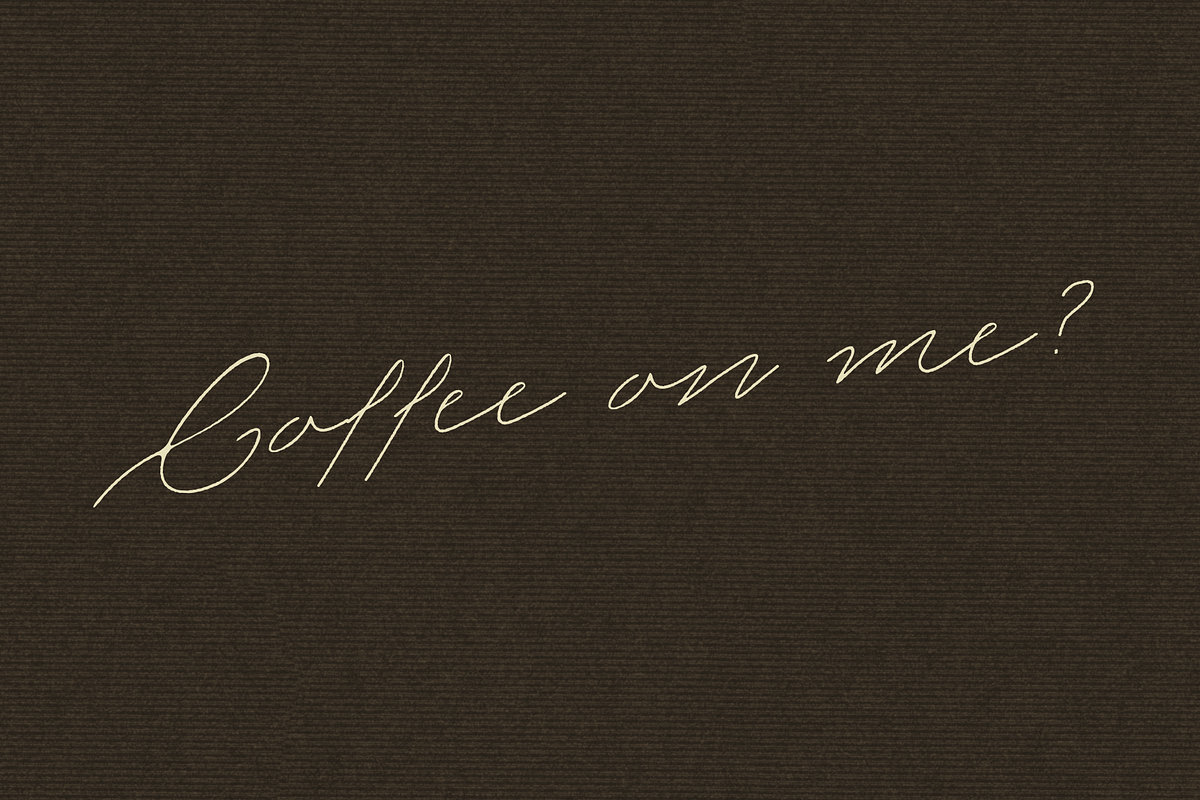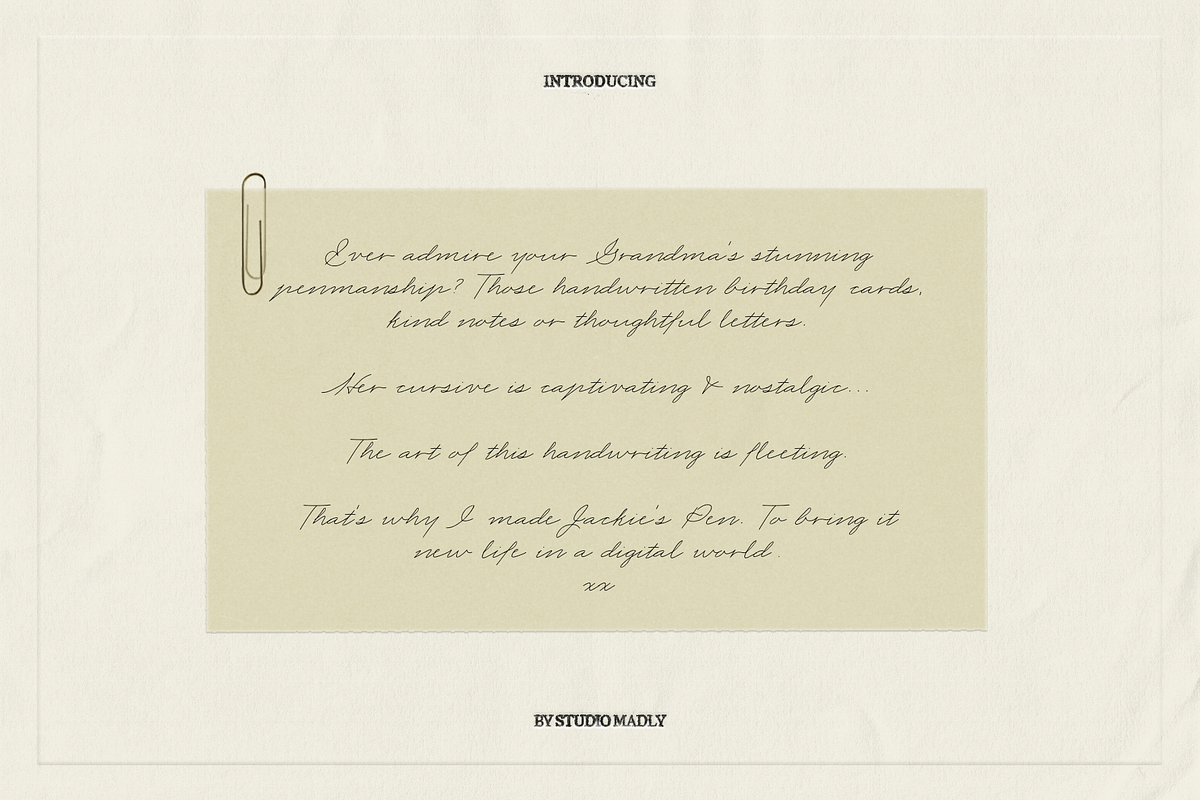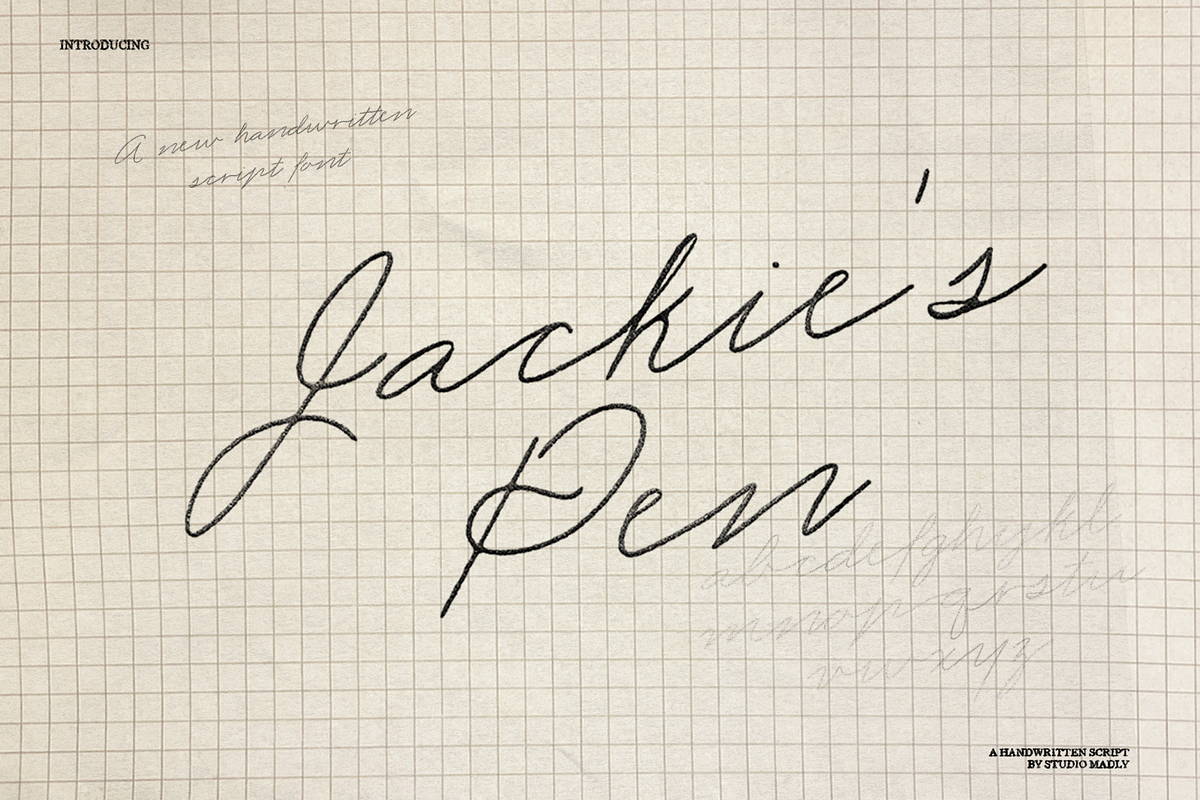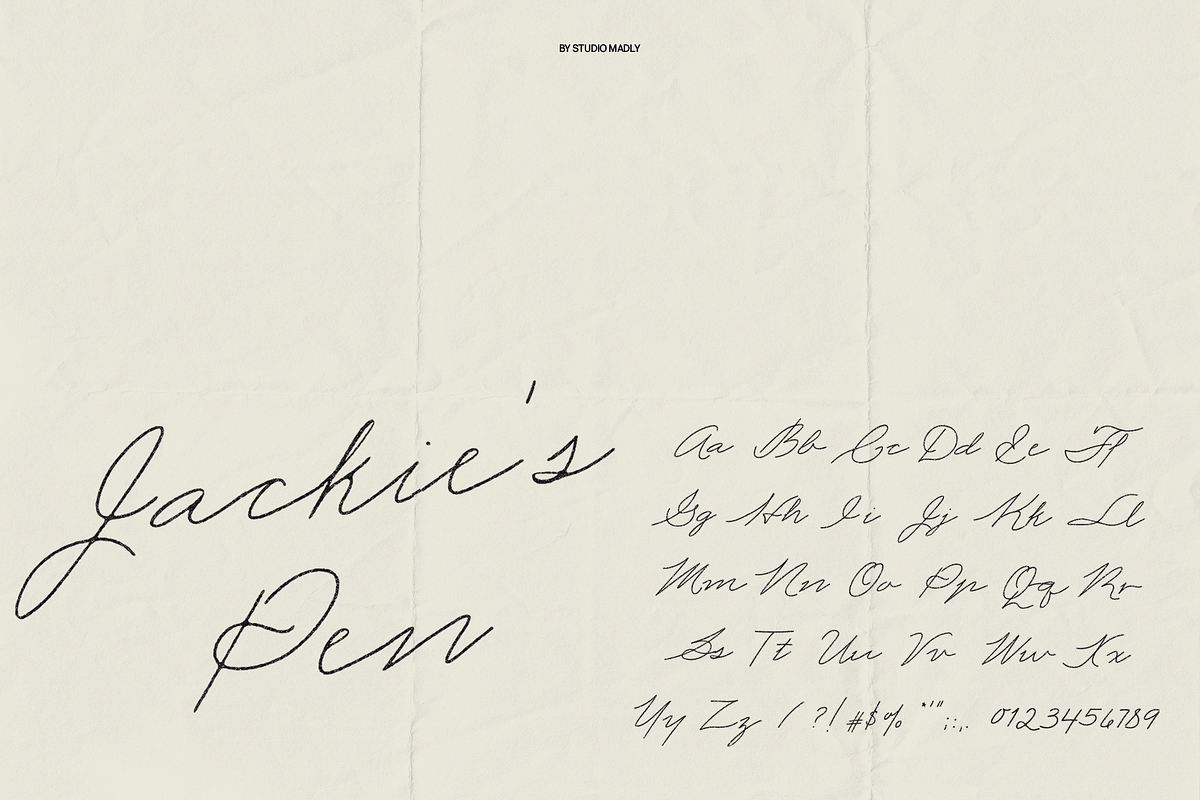
Jackie's Pen - A Handwritten Script
Ever admire your Grandma’s stunning penmanship? Those handwritten birthday cards, kind notes or thoughtful letters.
Her cursive is captivating & nostalgic...
The art of this handwriting is fleeting.
That’s why I made Jackie’s Pen. To bring it new life in a digital world. This font is perfect for those messy notes or small details. It truly brings projects a human touch. xx
HAND DRAWN | IMPERFECT | ARTFUL